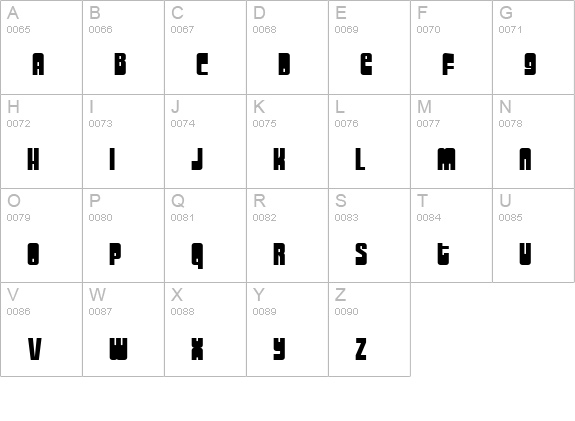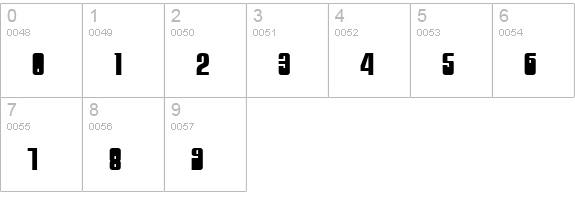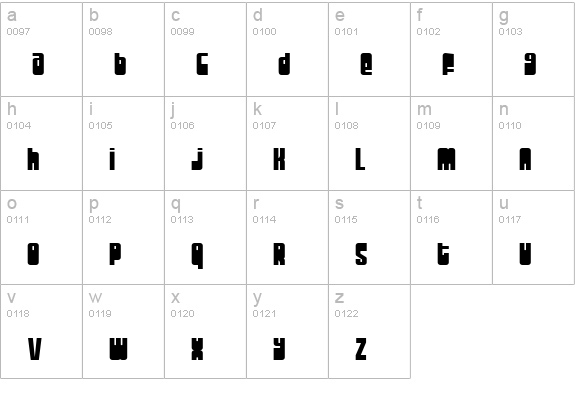
Moog Schmoog Font Details
Introducing Moog Schmoog, a modern and stylish font that effortlessly combines elegance with a touch of playfulness. This versatile typeface is perfect for a wide range of design projects, from branding and advertising to packaging and invitations. With its unique blend of clean lines and subtle curves, Moog Schmoog exudes a sense of sophistication while maintaining a friendly and approachable vibe. Whether you're looking to create eye-catching headlines or elegant body text, this font has you covered. Best of all, Moog Schmoog is available for free download at FontsMarket.com, making it accessible to designers of all levels. Don't miss out on the opportunity to add this versatile and charming font to your collection today!